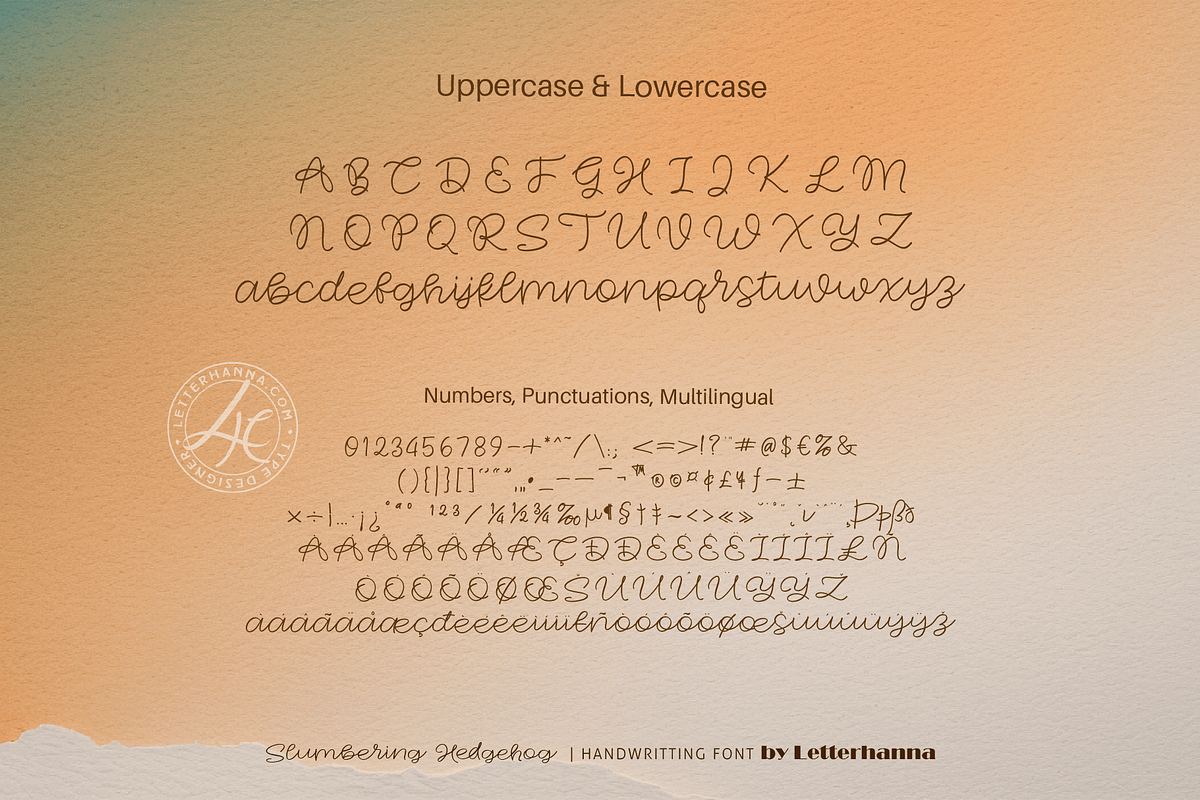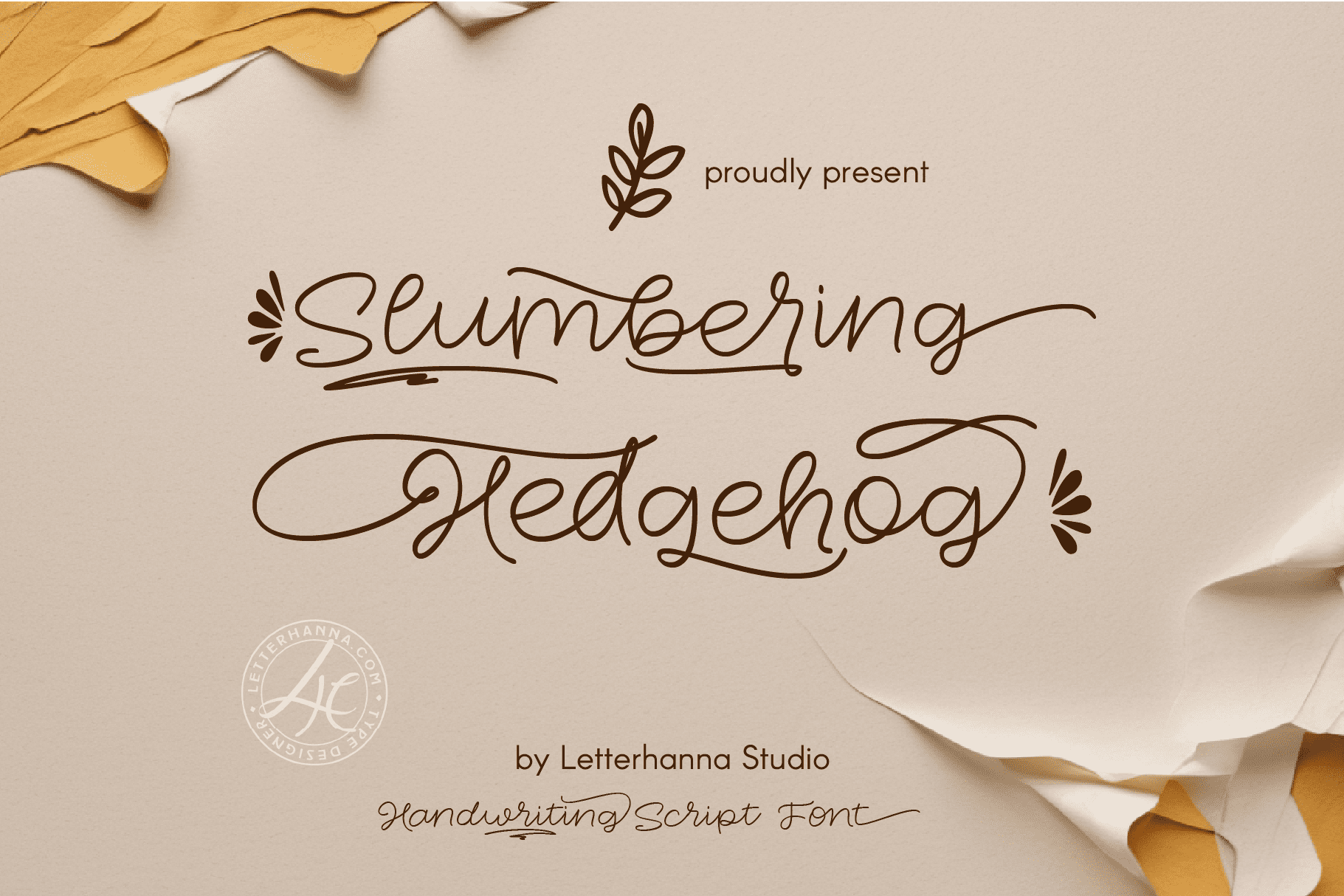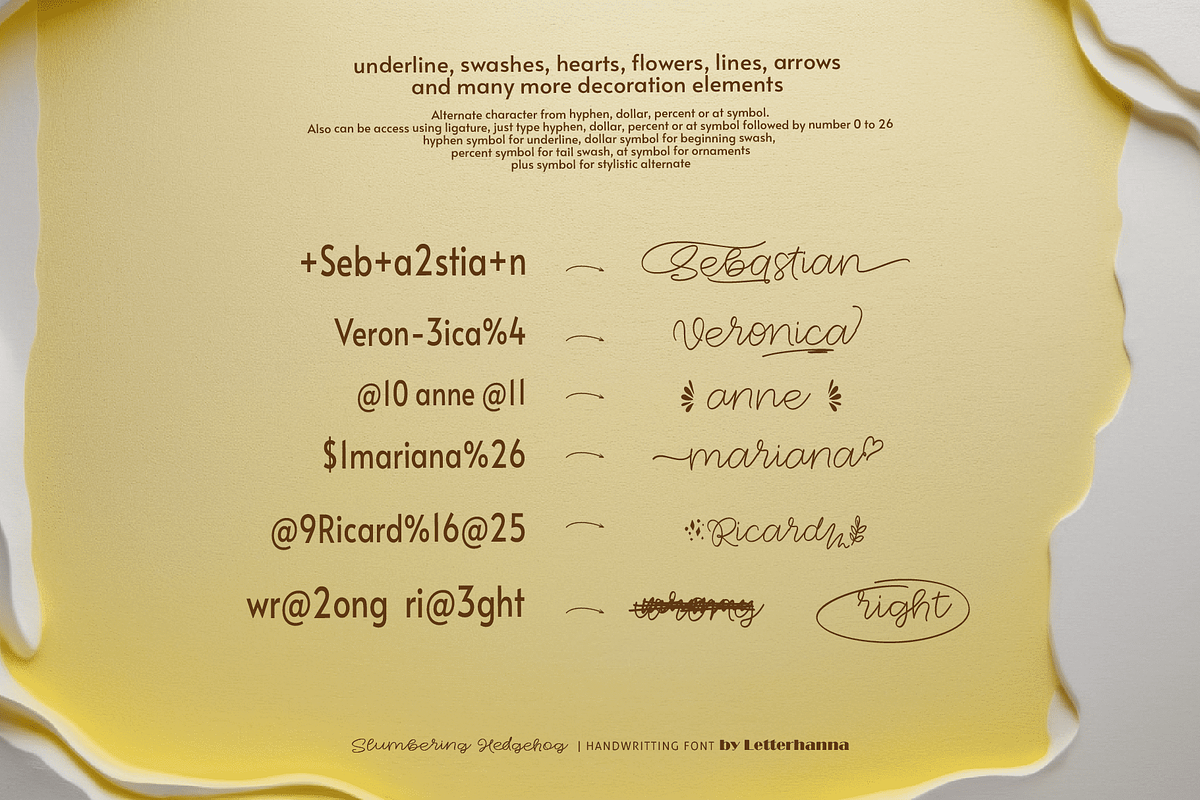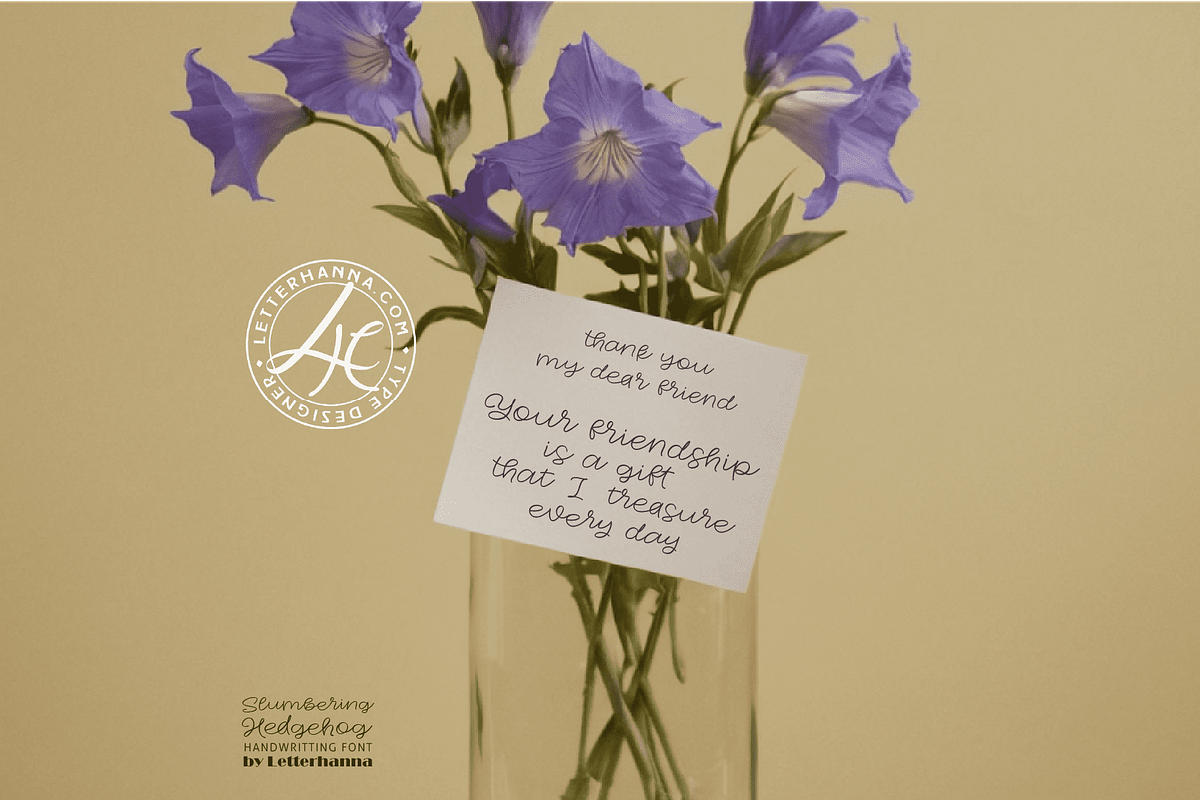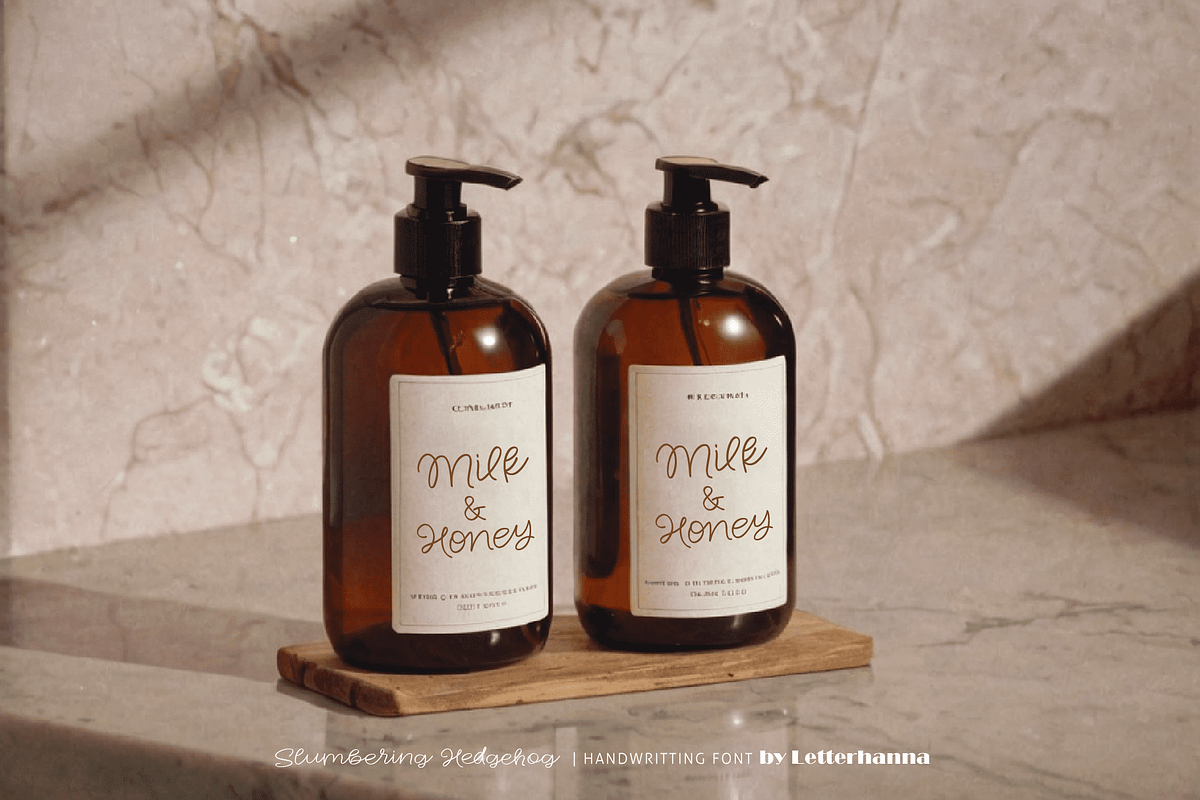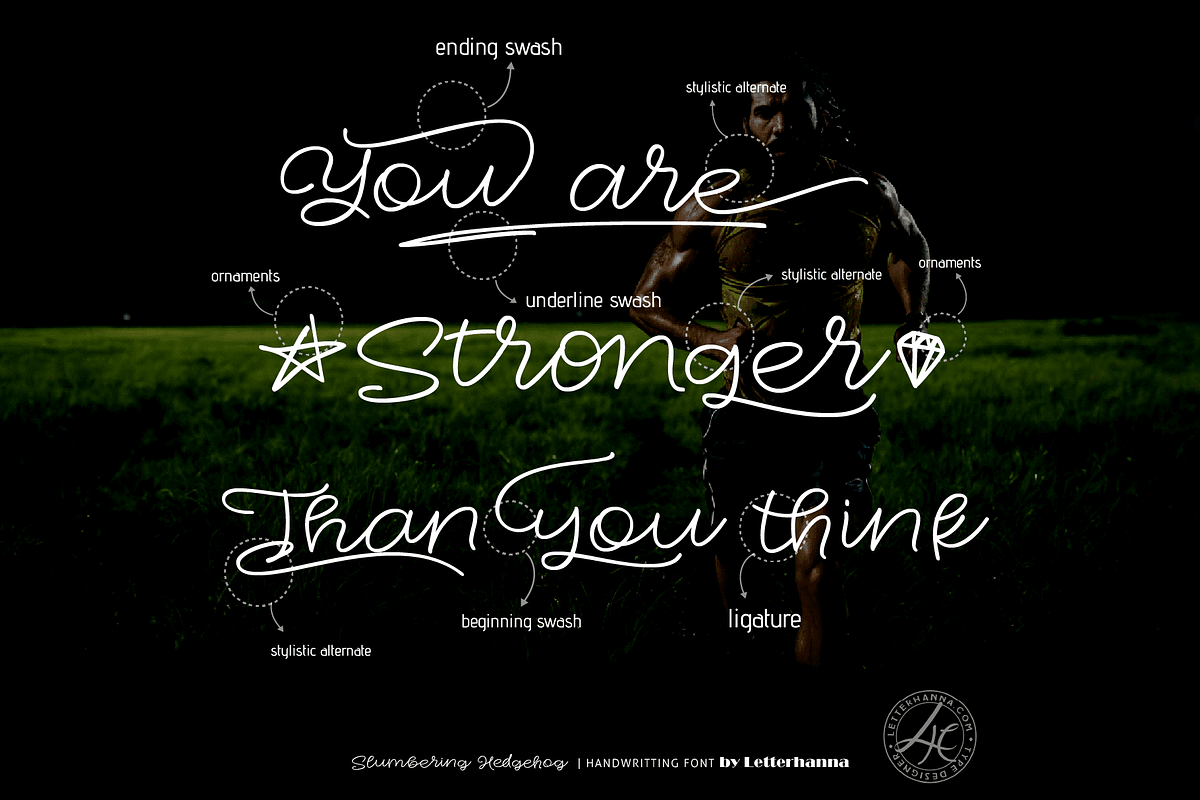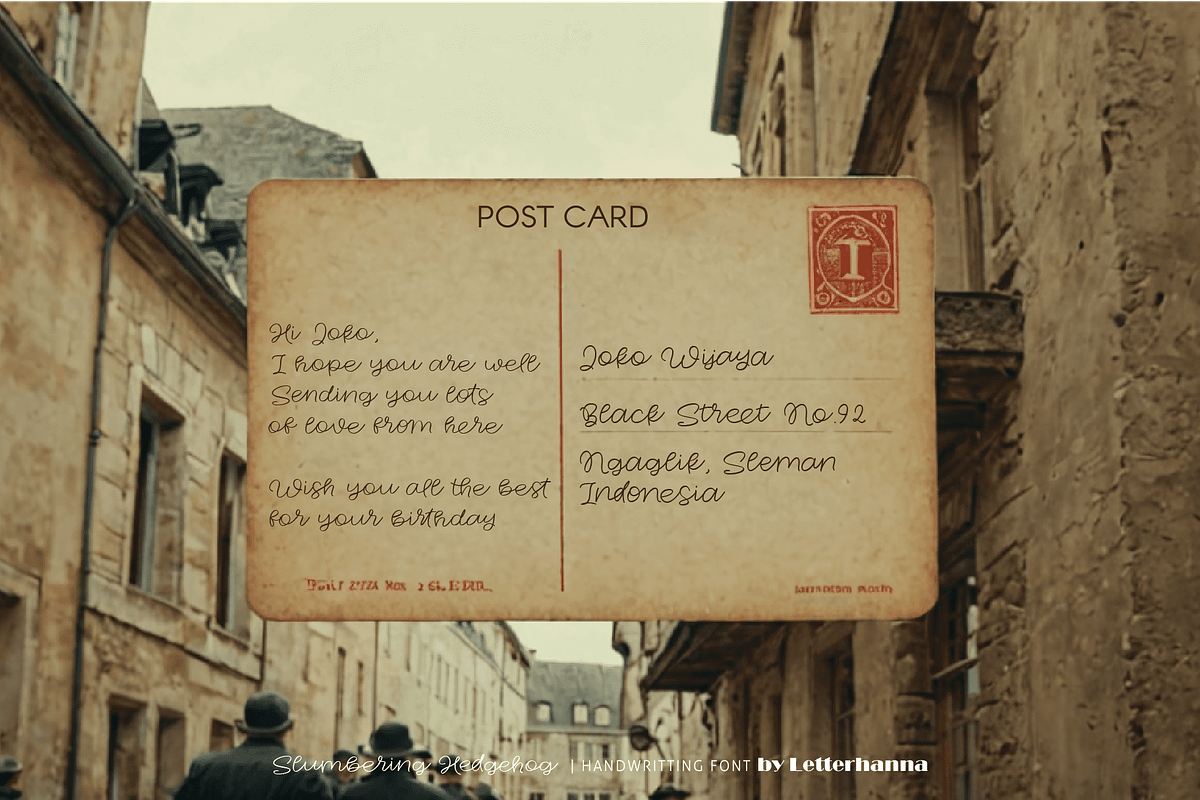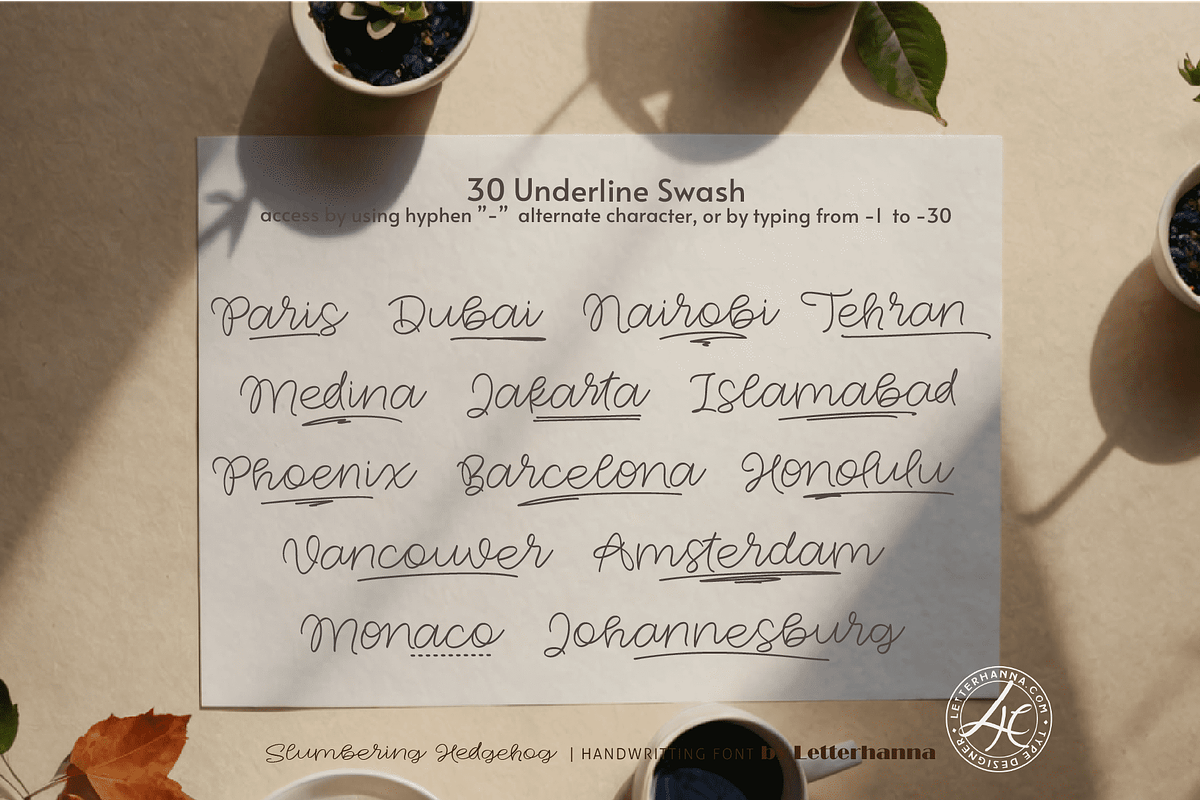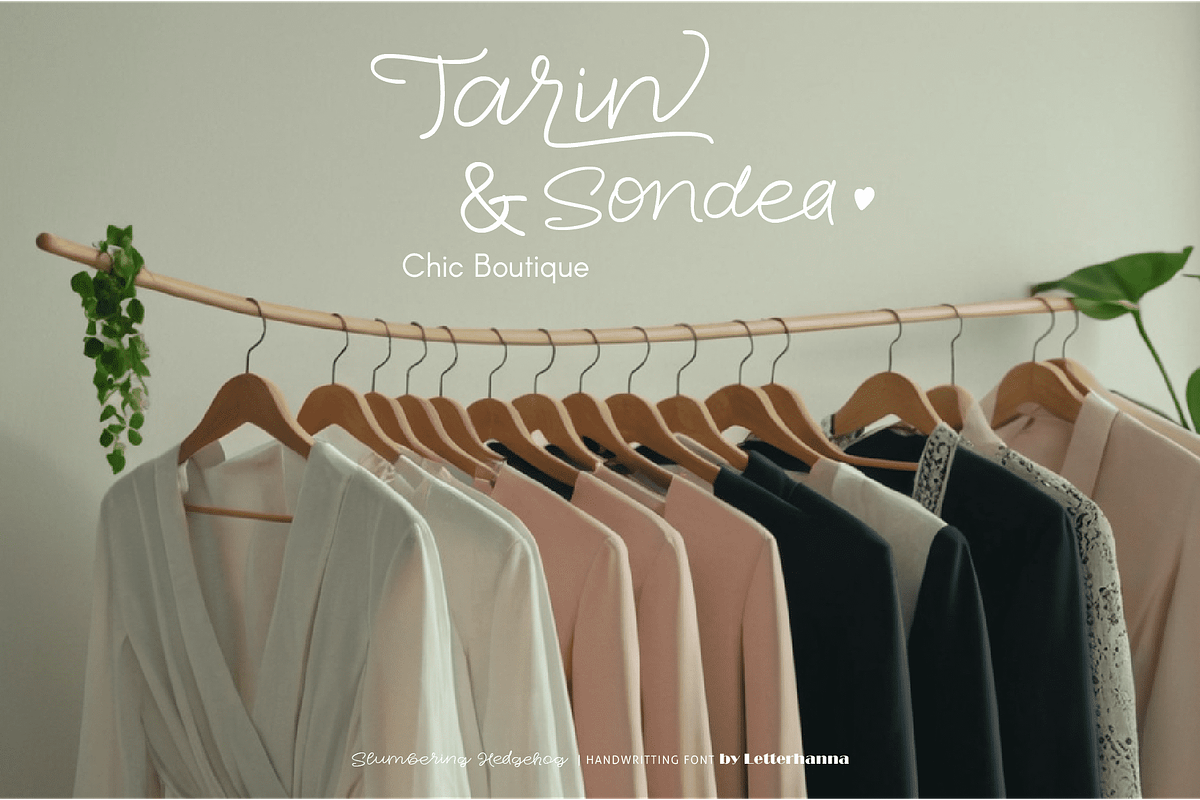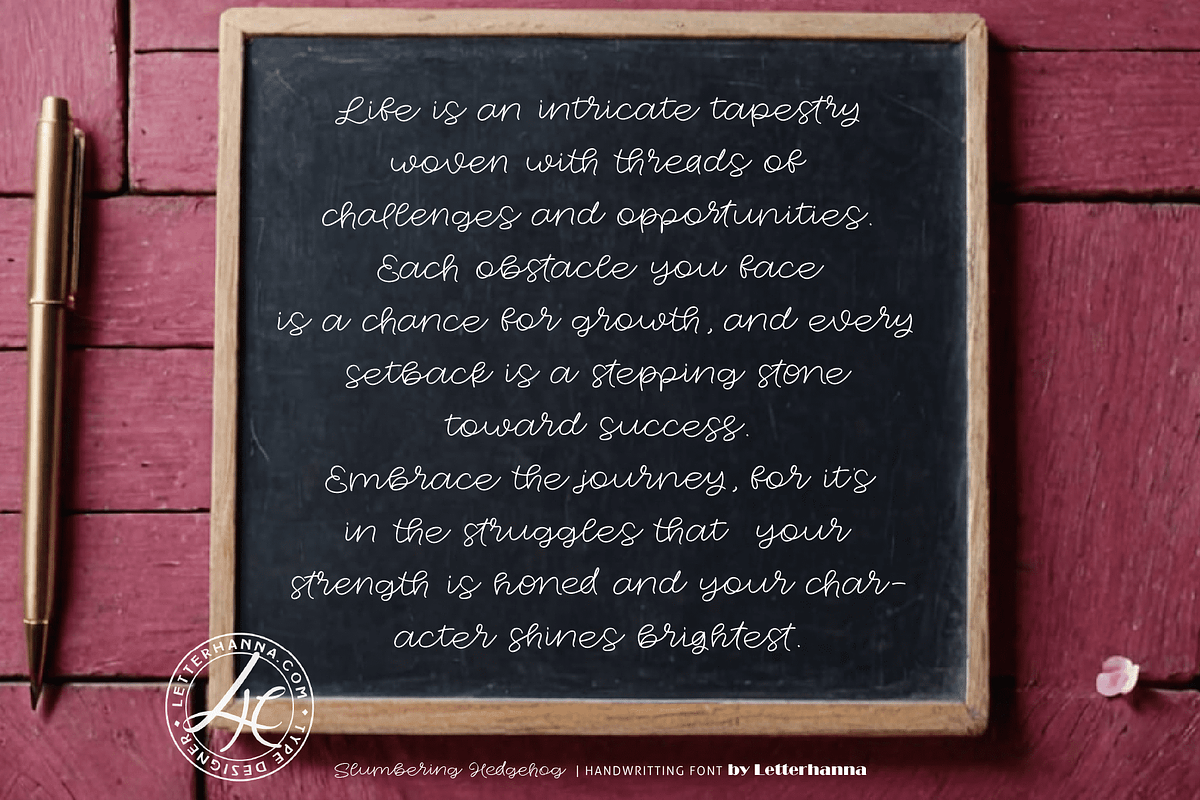
Slumbering Hedgehog Font
Slumbering Hedgehog is a playful script font, so cuddly it might just make you want to curl up with a mug of cocoa and a sketchbook. Each letter is hand-drawn with a touch of whimsy, perfect for adding a dose of adorable charm to your invitations, notes, or anything that needs a burst of personality. Whether you're crafting greetings for loved ones, writing grocery lists that suddenly turn into works of art, or just doodling because the world needs more cuteness, Slumbering Hedgehog will be your perfect companion.
Easy Access to Glyphs and Swashes Gain easy access to all alternate glyphs, swashes, ornaments, and underlines by simply using ligatures. You can try them out yourself in the font preview tool on our website, letterhanna.com.
Accessing Stylistic Alternates Stylistic alternates can be accessed by typing a plus symbol "+" in front of the original letter. For example, type "+A" to get the stylistic alternate of the capital letter A.
Accessing Swashes and Ornaments
Underline Swashes: Use a hyphen symbol "-" followed by a number between 1 and 30. For example, type "-3", "-22", or "-17" to get various underline swashes.
Head/Beginning Swashes: Use a dollar sign "$" followed by a number between 1 and 9. For example, type "$2" or "$8" to get different head/beginning swashes.
Tail/Ending Swashes: Use a percent sign "%" followed by a number between 1 and 30. For example, type "%3" or "%15" to get various tail/ending swashes.
Ornaments: Use an "at" symbol "@" followed by a number between 1 and 26. For example, type "@4" or "@13" to get different ornaments.
PUA Encoding for Ease of Use The Slumbering Hedgehog Font is also PUA encoded, which means you can access all the glyphs and swashes with ease!
Uppercase and lowercase letters
Numbers and punctuation marks
Beginning and ending swashes
Underline swashes
Stylistic alternates
Ornaments
Easy access to swashes using ligatures